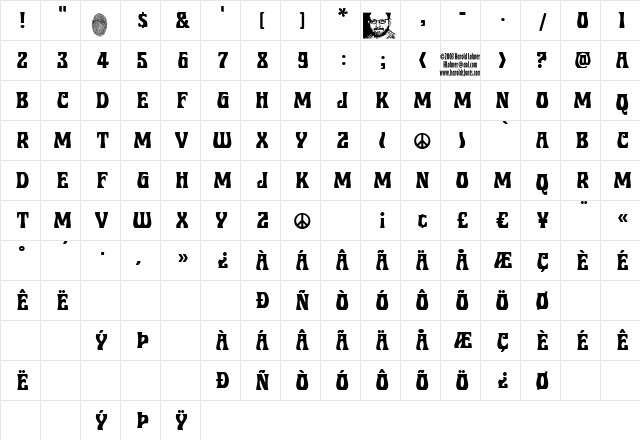
Roberta Raised ShadowFillDemo Regular Font Preview
Roberta Raised ShadowFillDemo Regular
Design Context for Roberta Raised ShadowFillDemo Typeface
Roberta Raised ShadowFillDemo brings ornamental detail and strong personality to headlines and identities, where visual impact matters more than quiet functionality.
Font Pairing: Pair with a clean neutral sans-serif for body copy to let Roberta Raised ShadowFillDemo's character lead without overwhelming the composition.
Pro Tip: Use Roberta Raised ShadowFillDemo exclusively at display sizes — it was designed to be seen, not read at length. Let a neutral companion handle body copy.